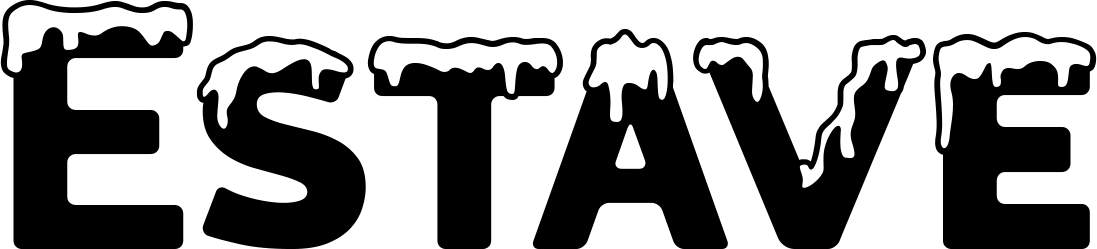
Estave Font
Estave is cold and crusty, like an icy puddle of water on a white Christmas morning. Make snowy and elegant headlines or titles for winter party posters, Christmas flyers, snowy book covers, and so on. Dig into our libra…
Estave is cold and crusty, like an icy puddle of water on a white Christmas morning. Make snowy and elegant headlines or titles for winter party posters, Christmas flyers, snowy book covers, and so on. Dig into our library to find other hot snow fonts and many more.
Winter is coming! ESTAVE font comes to make your winter more cool. A bold, strong character makes your title or headline more elegant. The snow ornament in the top of the font brings winter ambiance more strong. Happy writing! 🙂